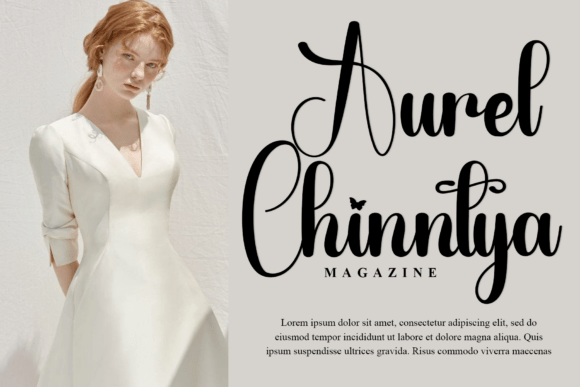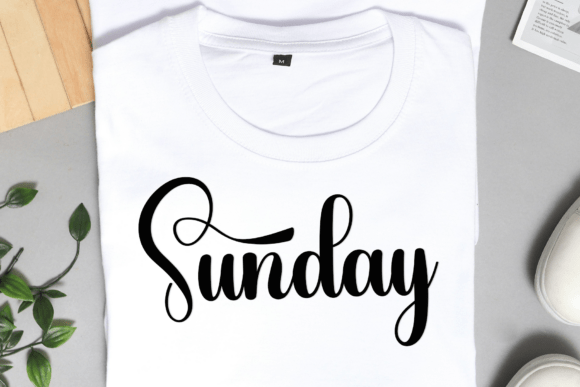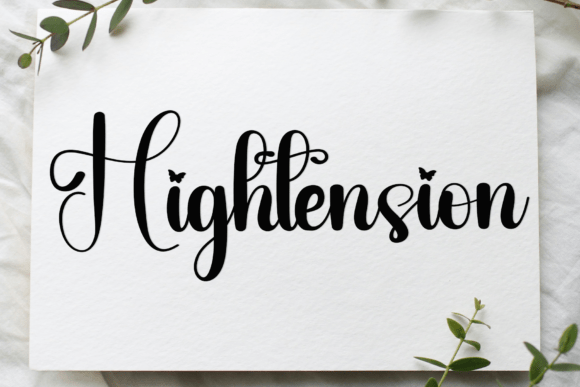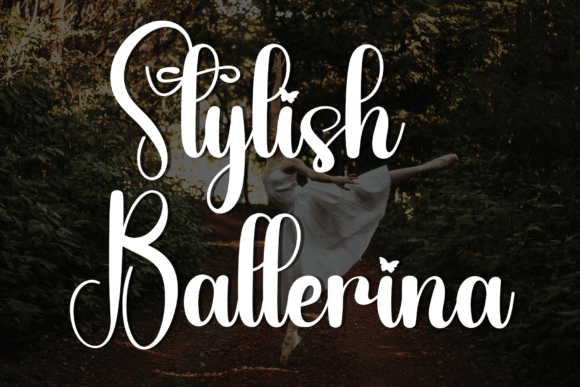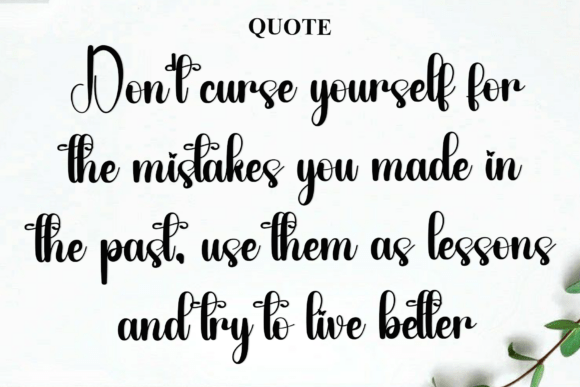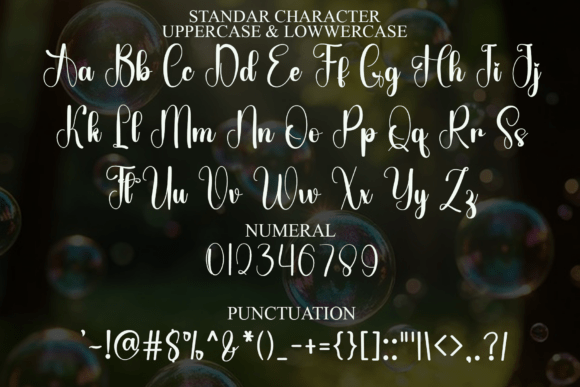
Cookies Picnic Font: A Festive and Merry Typeface for Holiday Designs
As the holiday season approaches, designers and crafters are on the lookout for typography that captures the spirit of the festivities. If you’re searching for a font that embodies the magic of the holidays, look no further than Cookies Picnic Font. This delightful typeface is designed to bring a touch of enchantment to your designs, making it perfect for greeting cards, gift tags, and holiday-themed projects.
A Festive and Whimsical Typeface
Cookies Picnic Font is a decorative typeface that exudes a sense of nostalgia and cheerfulness. Its whimsical flair and decorative elements evoke the feeling of a festive holiday celebration. The font’s design is reminiscent of traditional holiday decorations, with intricate details and ornate flourishes that add a touch of sophistication to your designs.
Cookies Picnic Font is specifically designed for holiday-themed projects. Whether you’re creating greeting cards, gift tags, or social media graphics, this font is sure to add a touch of festive flair to your designs. The font’s playful and cheerful personality makes it perfect for a wide range of holiday projects, from Christmas and New Year’s Eve to Hanukkah and Thanksgiving.
One of the best features of Cookies Picnic Font is that it’s PUA (Private Use Area) encoded. This means that you can access all of the amazing glyphs and ligatures with ease, giving you a wide range of creative possibilities. With PUA encoding, you can easily switch between different characters and glyphs, allowing you to customize your designs to suit your needs.
Bringing a Cheerful and Nostalgic Ambiance to Your Words
Cookies Picnic Font has a unique ability to bring a cheerful and nostalgic ambiance to your words. The font’s whimsical design and decorative elements evoke a sense of nostalgia, transporting your readers back to a simpler time. Whether you’re creating a holiday greeting card or a festive social media graphic, this font is sure to add a touch of warmth and personality to your message.
Tips for Using Cookies Picnic Font
Here are a few tips for getting the most out of Cookies Picnic Font:
- Use it for holiday-themed projects, such as greeting cards, gift tags, and social media graphics.
- Experiment with different font sizes and colors to add visual interest to your designs.
- Take advantage of the font’s PUA encoding to access a wide range of glyphs and ligatures.
- Pair it with other festive fonts or decorative elements to create a unique and eye-catching design.
Why Choose Cookies Picnic Font?
There are many reasons why Cookies Picnic Font is a great choice for your holiday designs. Here are a few:
- It’s a unique and festive typeface that captures the spirit of the holiday season.
- It’s perfect for a wide range of holiday projects, from greeting cards to social media graphics.
- It’s PUA encoded, making it easy to access a wide range of glyphs and ligatures.
- It’s a high-quality font that’s designed to add a touch of enchantment to your designs.
Cookies Picnic Font is a festive and merry typeface that’s perfect for holiday designs. With its decorative elements and whimsical flair, it adds a touch of enchantment to your designs. Whether you’re a designer or crafter, this font is sure to bring a cheerful and nostalgic ambiance to your words. So why wait? Download Cookies Picnic Font today and start creating magical holiday designs that will delight your audience!